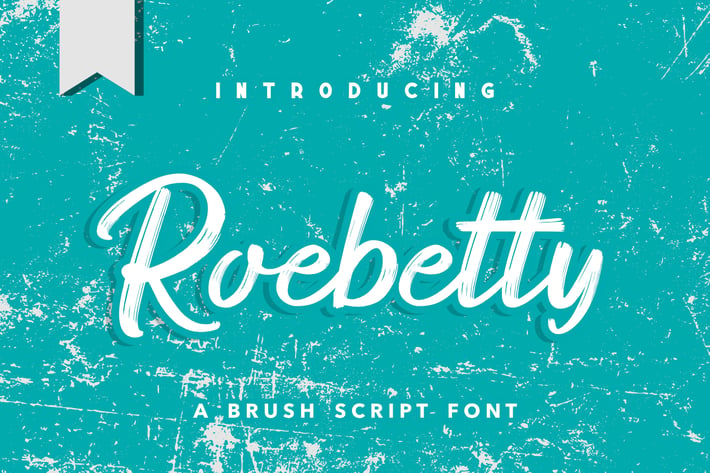
Roebetty | Brush Script Font
Roebetty a Brush Script Font, This font is made with a high premium quality level which you can use as flyers, quotes, posters, banners, packaging, merchandise, logotypes and much more.